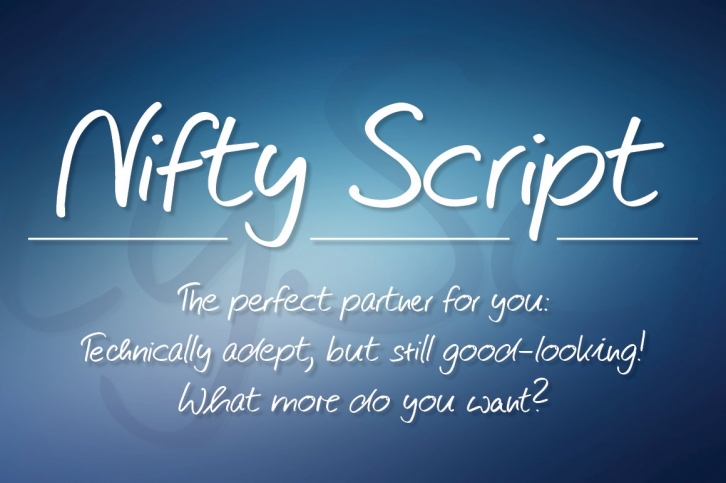
The “Ultimate Script� Not yet, but we’re working on it! Just think: Loads of ligatures, contextual variations and stylistic alternates, coupled with easy use…Just what you’ve been looking for all this time? Well, here it is with all of its typographic power.